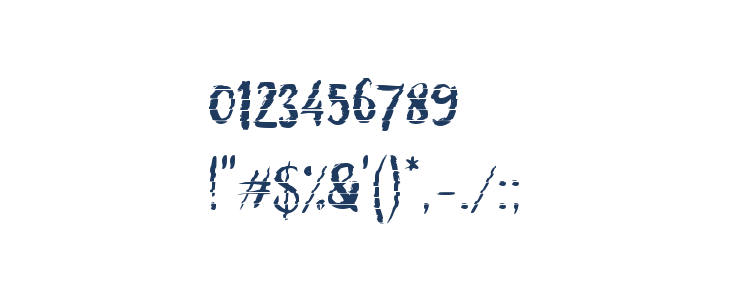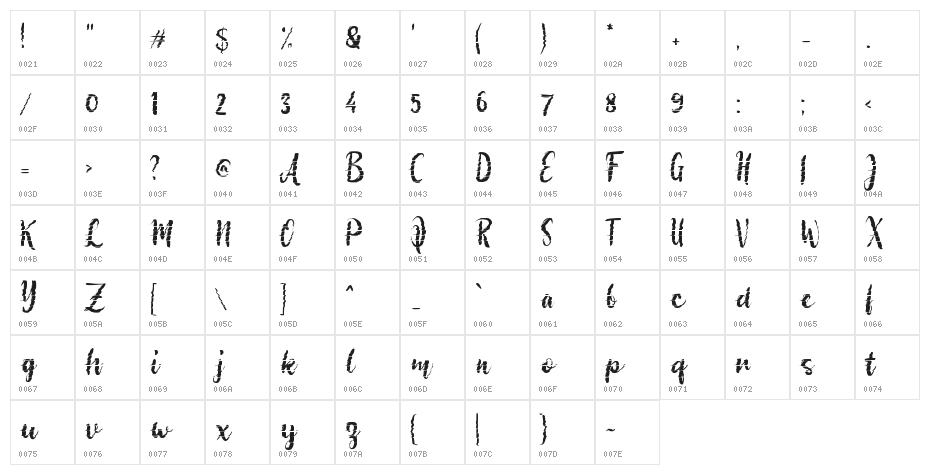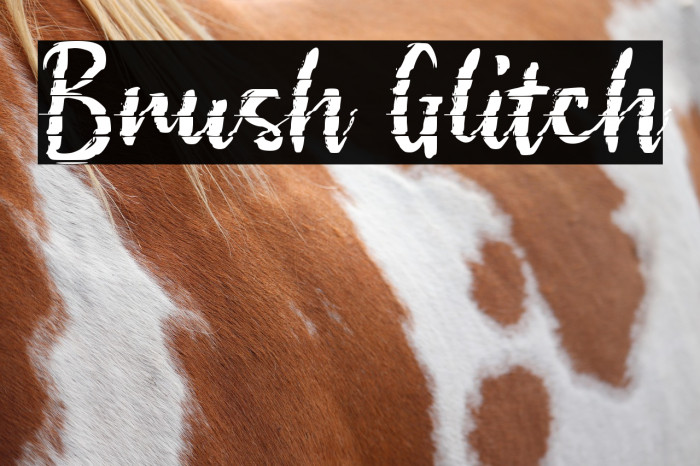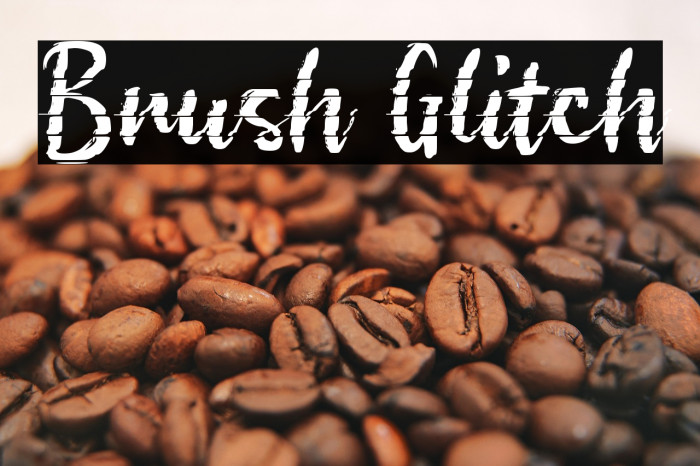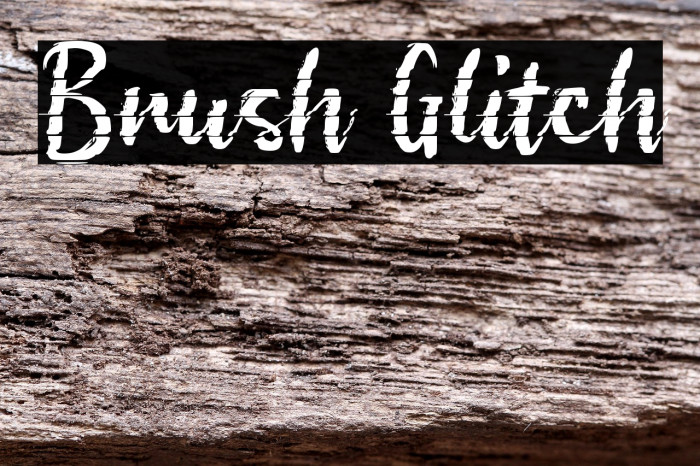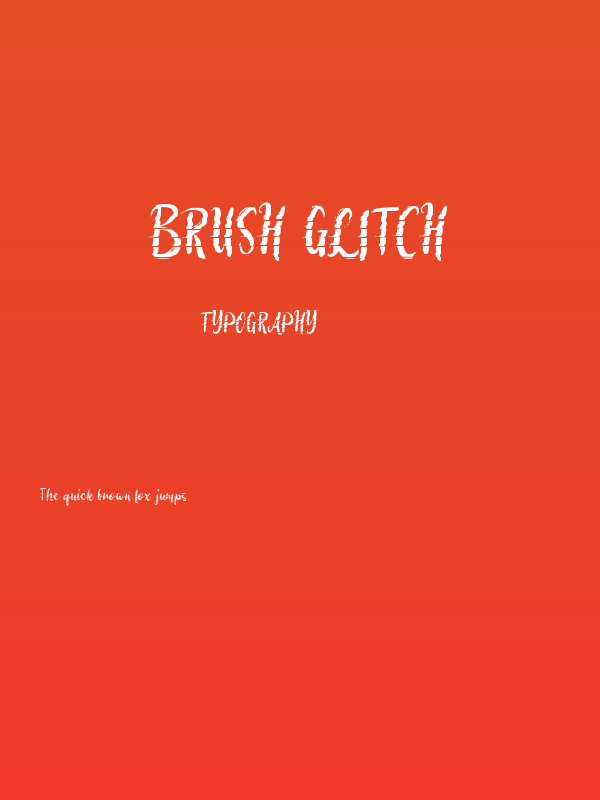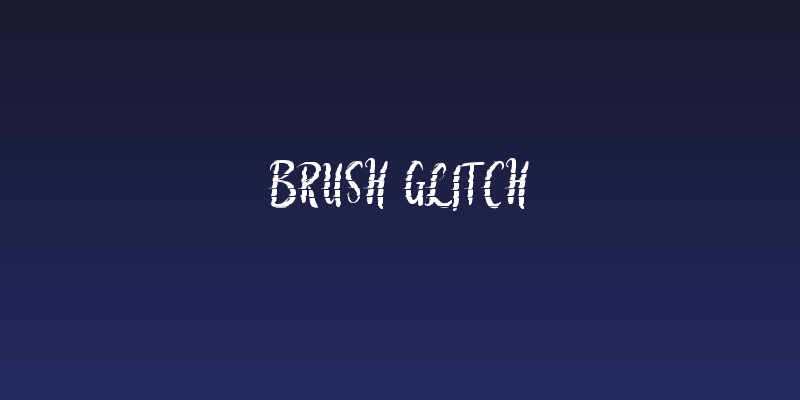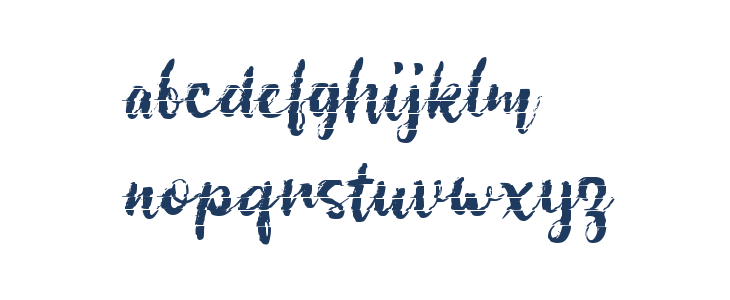
Brush Glitch Font
Brush Glitch Description
This font features a unique brush style with a glitch effect, creating a dynamic and edgy appearance. The letters are crafted with a flowing, cursive-like quality, yet they are interrupted by horizontal distortions that give a modern, digital twist. The uppercase and lowercase letters maintain a consistent style, with the glitch effect adding an element of surprise and creativity. Numbers and special characters follow the same design, ensuring a cohesive look across all elements. This font is perfect for projects that aim to capture attention and convey a sense of modernity and innovation.
| Proposed Projects | Ideal for digital art, music album covers, edgy branding, and modern posters. |